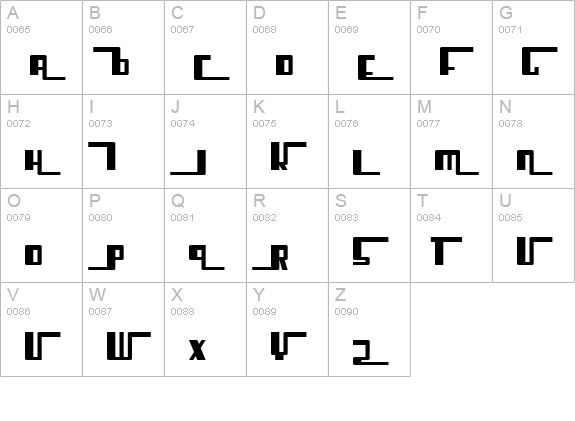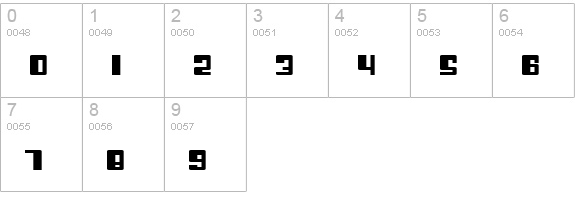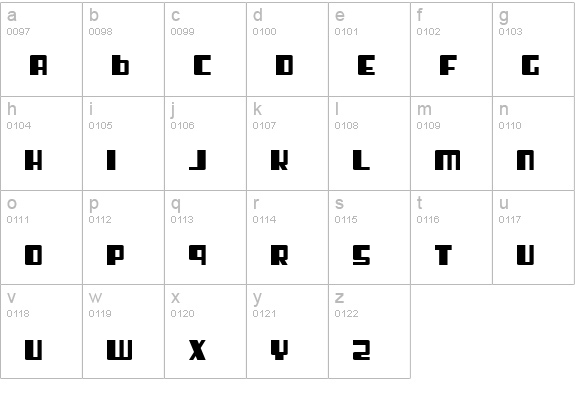
Cosmic Age Extended is a distinctive, extended-width variant in the Cosmic typeface family \xE2\x80\x94 well suited to design and typography projects.
Cosmic Age Extended font is a stunning display typeface that embodies futuristic and cosmic aesthetics. With its sleek and elongated letterforms, this font exudes a sense of space exploration and modernity. Its unique design makes it perfect for projects that require a touch of cosmic inspiration, such as sci-fi movie posters, space-themed websites, or futuristic brand identities. What makes Cosmic Age Extended font even more appealing is that it is available for free download at FontsMarket.com. This means you can easily access and use this eye-catching typeface in your designs without any cost. Don't miss out on the opportunity to elevate your projects with the otherworldly charm of Cosmic Age Extended font – download it for free today!